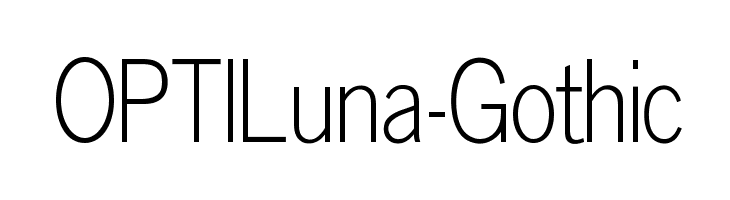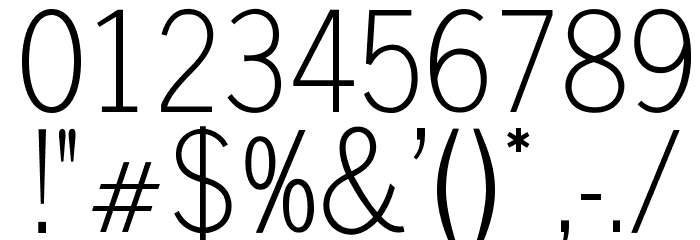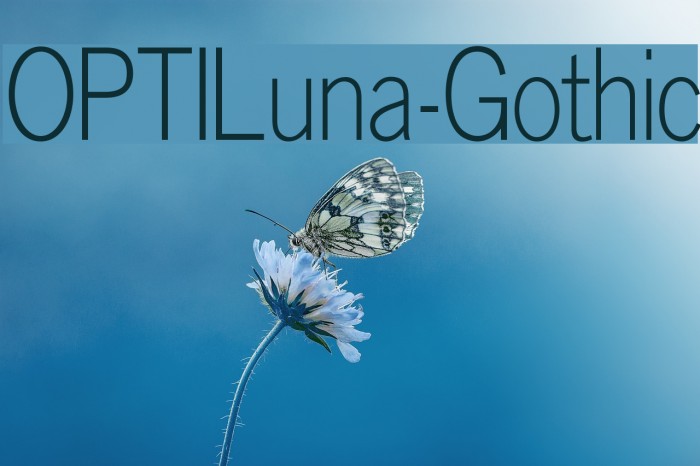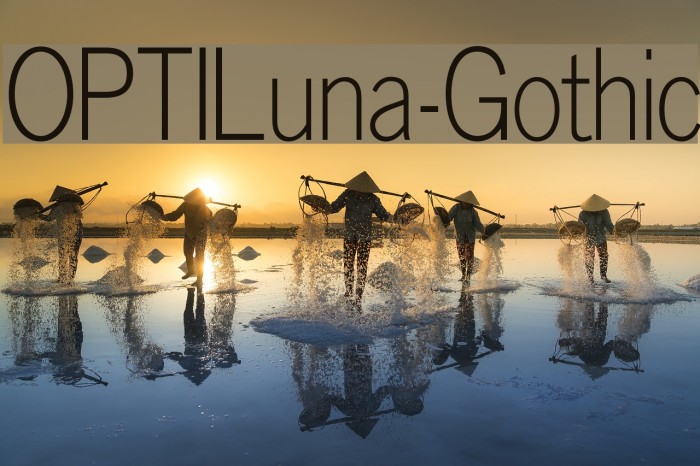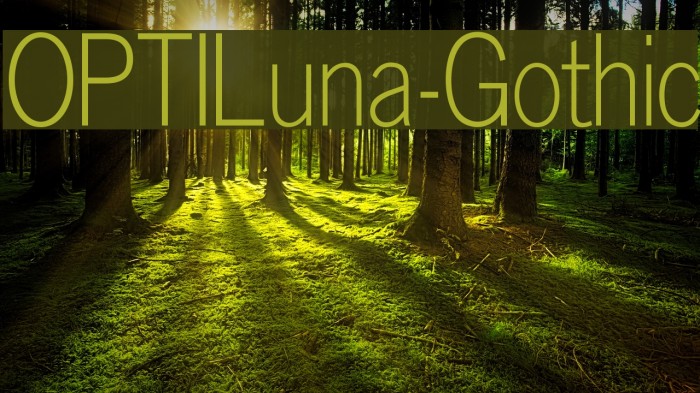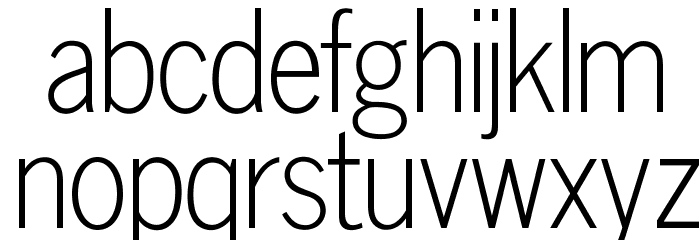
OPTILuna-Gothic Font
OPTILuna-Gothic Description
This font features a clean and modern sans-serif design with a geometric structure. The characters are evenly spaced, providing a balanced and harmonious appearance. The uppercase letters are tall and elegant, while the lowercase letters maintain a consistent height, enhancing readability. The numerals are clear and distinct, making them suitable for various applications. The special characters are well-defined, adding versatility to the font's use. Overall, the font exudes a contemporary and professional vibe, making it ideal for digital and print media.
A modern, geometric sans-serif font with clean lines and balanced spacing from Uncategorized fonts.
- Proposed Projects: Ideal for branding, web design, editorial layouts, and corporate materials.